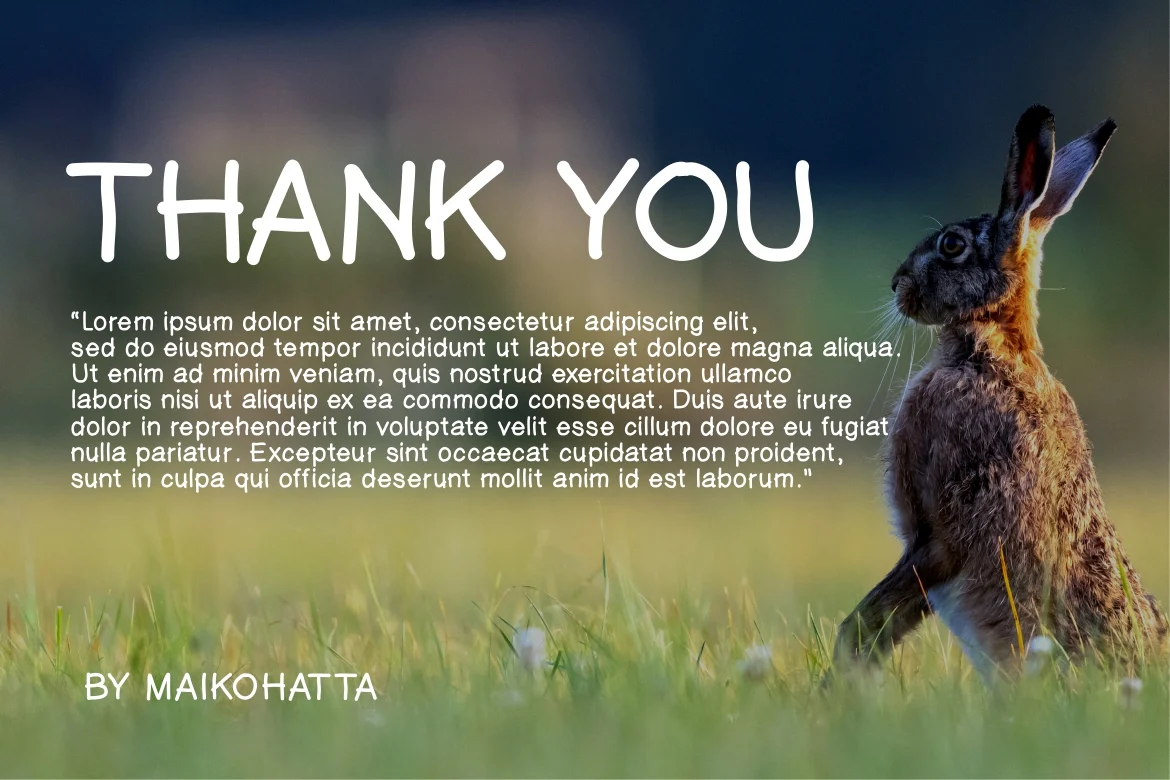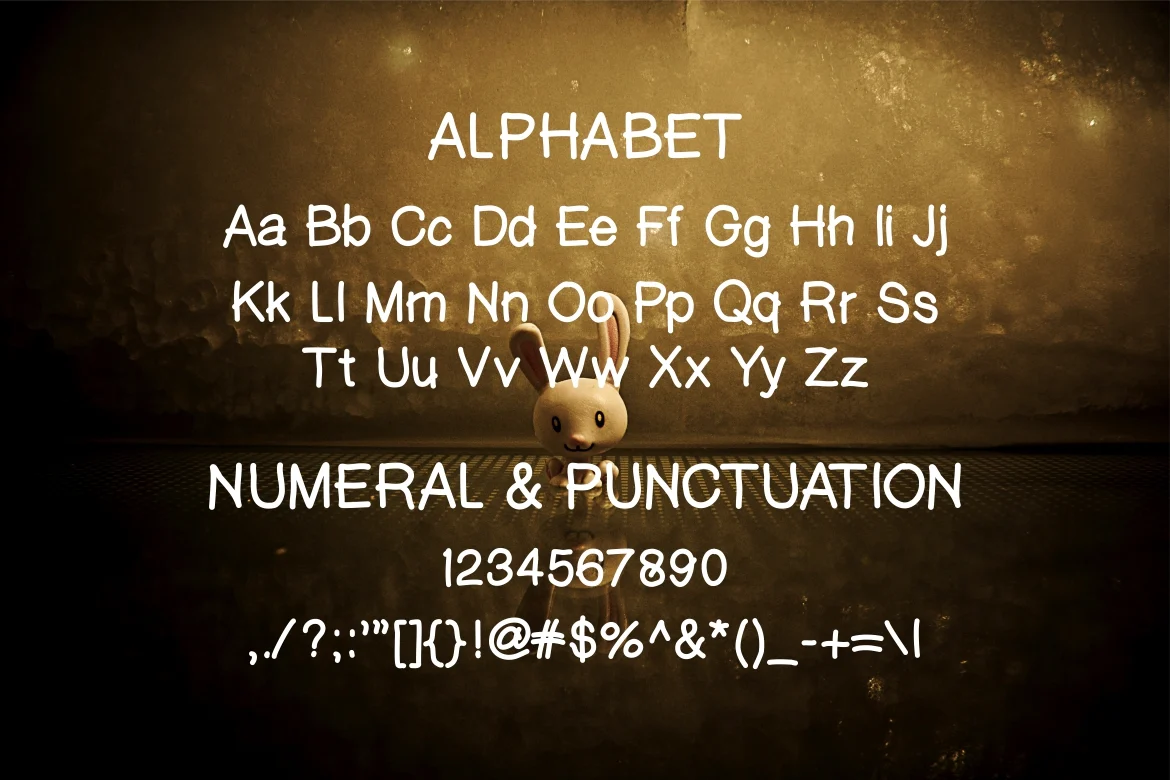
Bunny Jumping Font
Introducing our new product Bunny Jumping Font - Modern Font
Bunny Jumping Font - Modern Font is a bold and authentic display font. The font is suitable for any branding project like logo, t-shirt printing, esport, and many more. outstanding in a wide range of contexts.